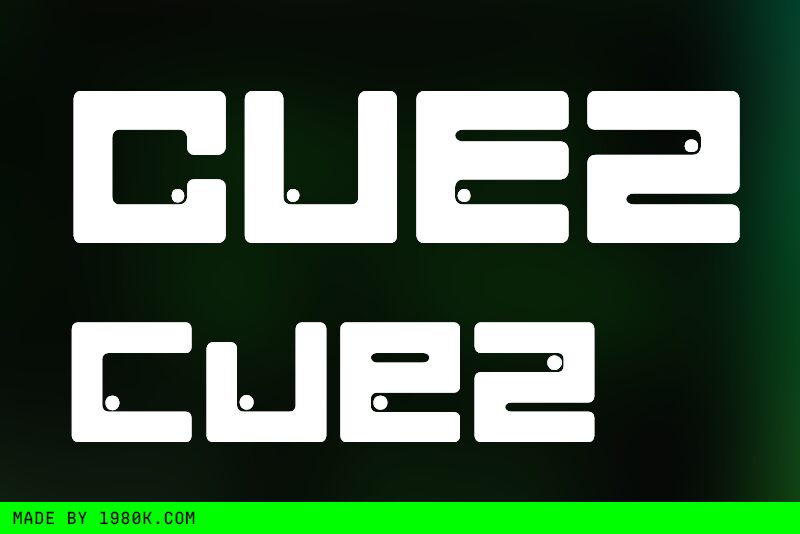
Cuez_Ver5
Cuez font, crafted by 1980k.com, is a striking display typeface that commands attention with its futuristic aesthetic and expanded width. This unique font combines clean lines with bold geometric elements, making it an ideal choice for projects seeking a modern yet edgy feel. Its strong visual impact is perfect for headlines, posters, and branding materials that require a standout design element.
Cuez_Ver5 was illustrated in Adobe Illustrator and subsequently converted into active TTF (TrueType) font families in 2004.